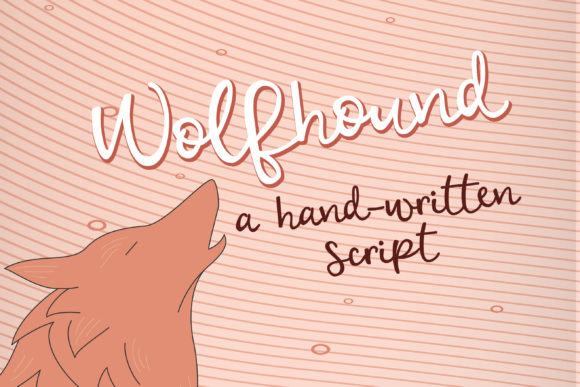
Prepare yourself to be captivated by the enthralling charm of ZP Wolfhound Font! This enchanting script font is meticulously crafted to evoke the genuine warmth of handwritten words.
Embrace the allure of Wolfhound's playful persona and let your imagination soar. Its endearing quirks and whimsical curves will effortlessly add a touch of heartfelt authenticity to your creative endeavors. Picture the joy of crafting exquisite wedding invitations that radiate with a personal touch or designing captivating social media posts that exude an irresistible charm.
Delve into the world of Wolfhound and unleash your creativity. Let its free-spirited nature inspire you to create eye-catching greeting cards that convey your sentiments with a heartwarming touch. The beauty of Wolfhound lies in its versatility. It adapts seamlessly to any artistic vision, whether you seek a whimsical touch or a touch of elegance.
Indulge in the sensory delight of Wolfhound's elegant flow. Its graceful strokes dance across the page, creating a visual symphony that captivates the senses. Experience the joy of crafting beautiful stationary art that evokes the essence of heartfelt connections.
With ZP Wolfhound Font, you hold the key to unlocking a world of creative possibilities. Its enchanting aura will transform your designs, adding a layer of warmth and authenticity that will resonate with your audience. Embrace the power of handwriting and let Wolfhound guide you on an artistic journey that will leave an unforgettable impression.